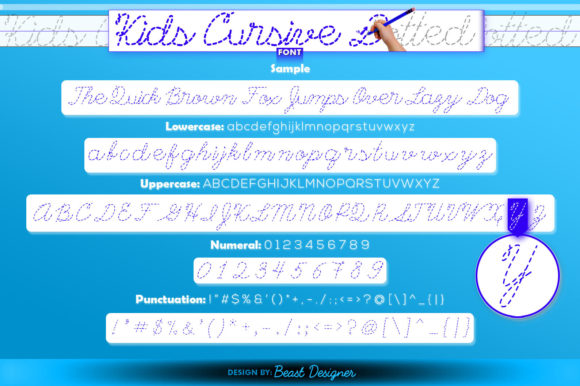
Introduction to Kids Cursive Dotted Font
As a designer, have you ever been in a situation where you’re working on a creative project and you need a font that’s both visually appealing and easy to read? Maybe you’re creating a set of letter tracing worksheets for preschoolers or designing a children’s book. Whatever your project may be, I’m excited to introduce you to the Kids Cursive Dotted Font – a high-quality, versatile font that’s perfect for any design resource.
Key Features of Kids Cursive Dotted Font
- High-quality, hand-drawn design ideal for creative projects, educational materials, and children’s content.
- Transparent background, allowing for seamless integration with any design or image.
- Unique characteristics include the use of dotted lines and playful flourishes, making it perfect for kids’ activities, worksheets, and educational materials.
Honest Review: Kids Cursive Dotted Font
I recently stumbled upon the Kids Cursive Dotted Font and I must say, it’s a delightful addition to any design project. This high-quality font is perfect for creating a whimsical and playful atmosphere in your work.
One of the standout features of this font is its transparent background, which makes it super easy to customize and use in various creative projects. The dotted design elements add a fun and quirky touch to any text, making it perfect for kids’ illustrations, educational materials, and even marketing campaigns.
- May not be suitable for formal or professional projects
- Not as versatile as other fonts for use in complex typography
Overall, I’m impressed with the Kids Cursive Dotted Font and would definitely recommend it to designers looking for a fun and playful addition to their projects. It’s a great free download that’s perfect for kids’ projects, educational materials, and more.
How to Use Kids Cursive Dotted Font
The Kids Cursive Dotted Font is a high-quality design resource that offers a unique and creative way to add a personal touch to your projects. With its transparent background, this font is perfect for various applications, from educational materials to creative projects.
To get the most out of the Kids Cursive Dotted Font, experiment with different font sizes, colors, and styles. You can also combine the font with other design elements, such as images and shapes, to create a unique and eye-catching design.
The Kids Cursive Dotted Font is perfect for various applications, including:
- Children’s educational materials, such as worksheets and activity sheets
- Wedding invitations and other special occasion designs
- Party decorations and signage
- Children’s